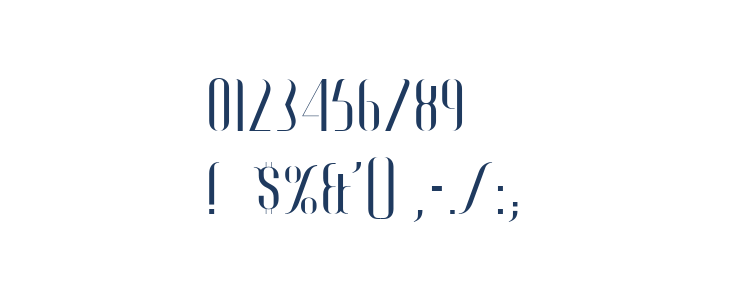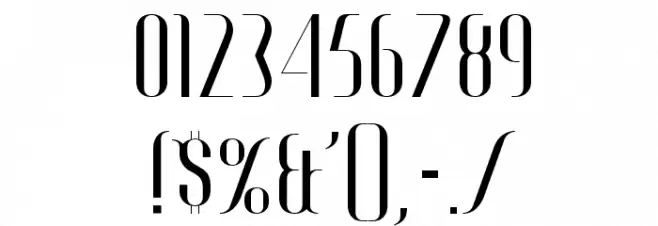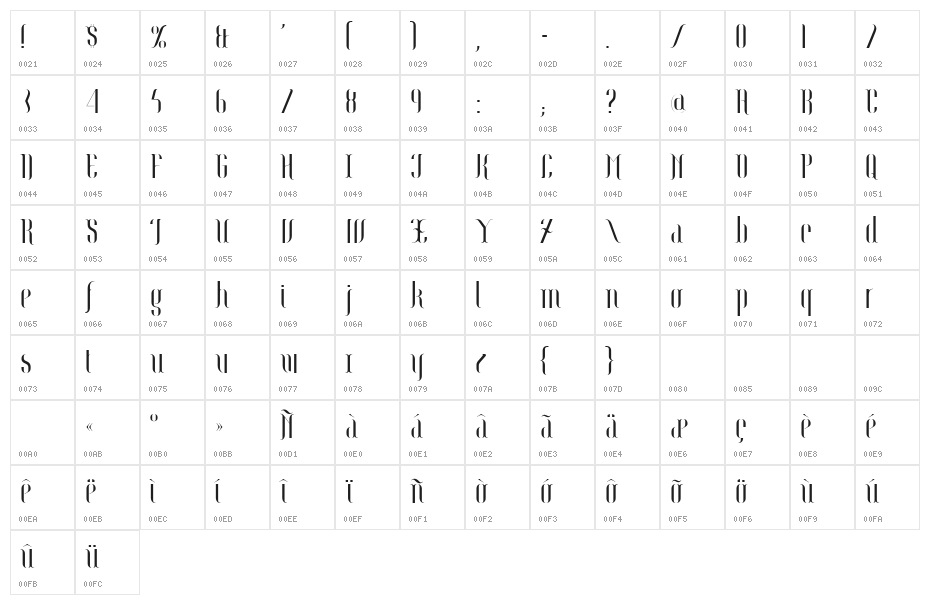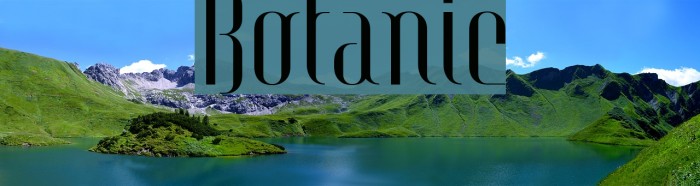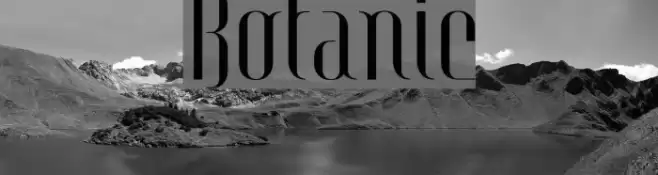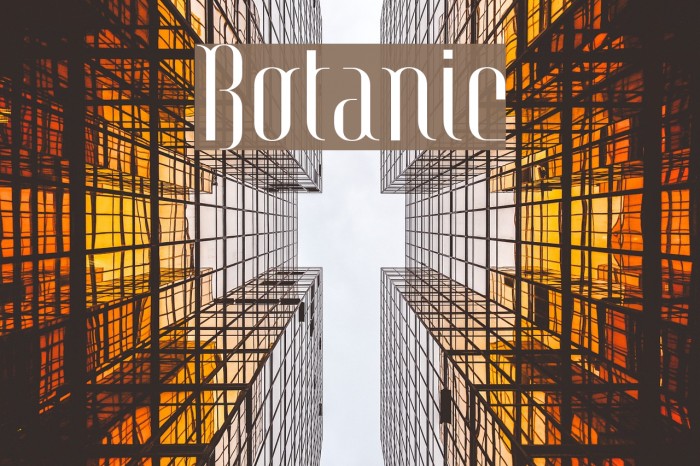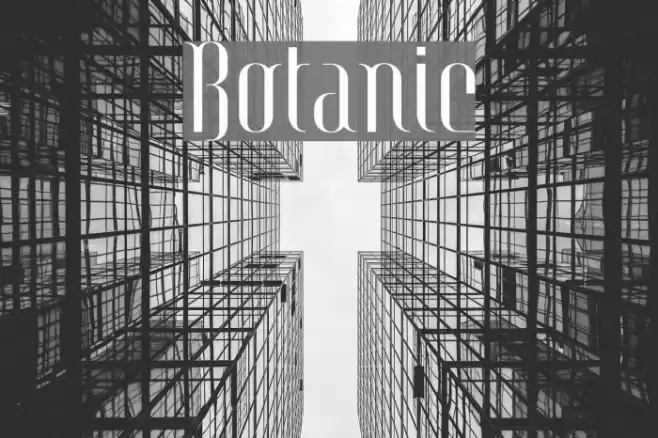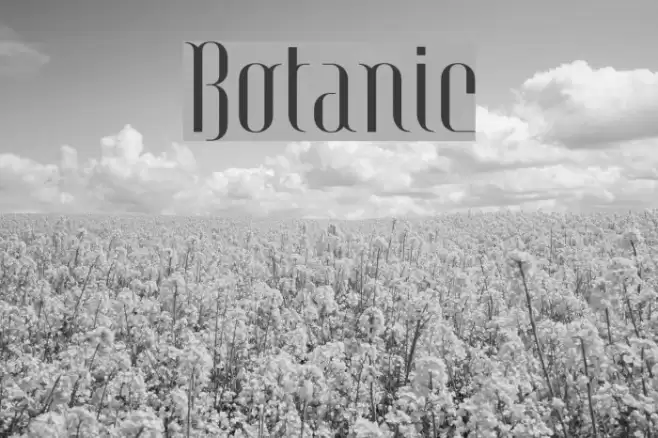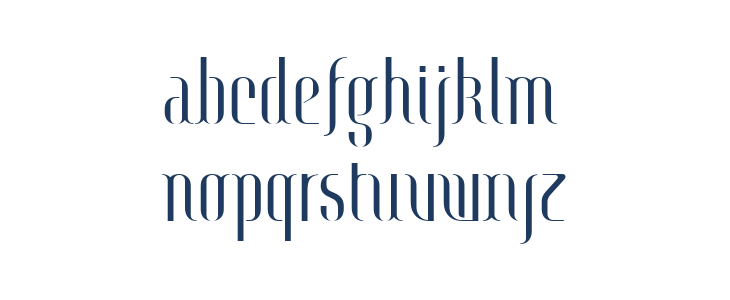
Botanic Font
Botanic Description
This font features a unique blend of elegance and modernity, characterized by its tall, slender letterforms and high contrast between thick and thin strokes. The uppercase letters exhibit a sophisticated flair with elongated verticals and subtle curves, while the lowercase letters maintain a consistent style with a slightly more relaxed form. The numerals are distinct and stylish, complementing the overall aesthetic. Special characters are thoughtfully designed to match the font's refined appearance. This typeface is ideal for projects that require a touch of class and modern sophistication.
| Overall Style | Modern, Elegant |
| Proposed Projects | Ideal for luxury branding, editorial design, fashion magazines, and high-end product packaging. |